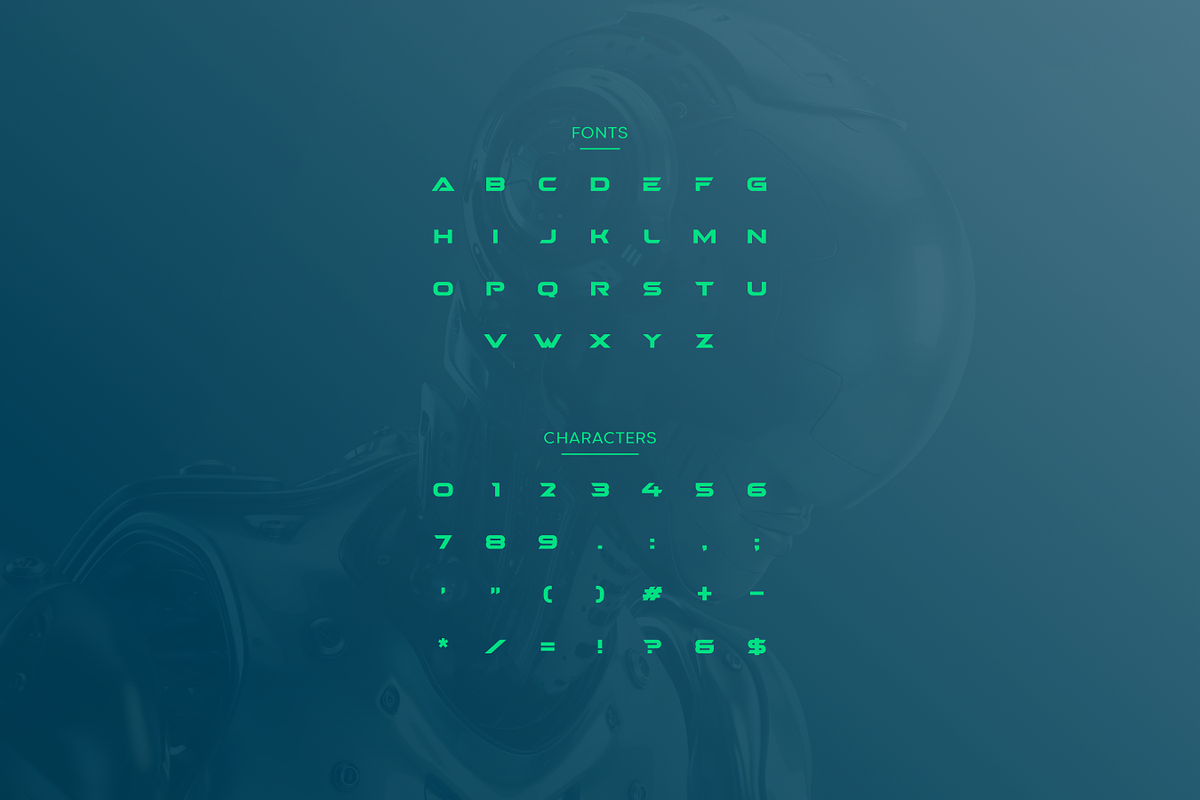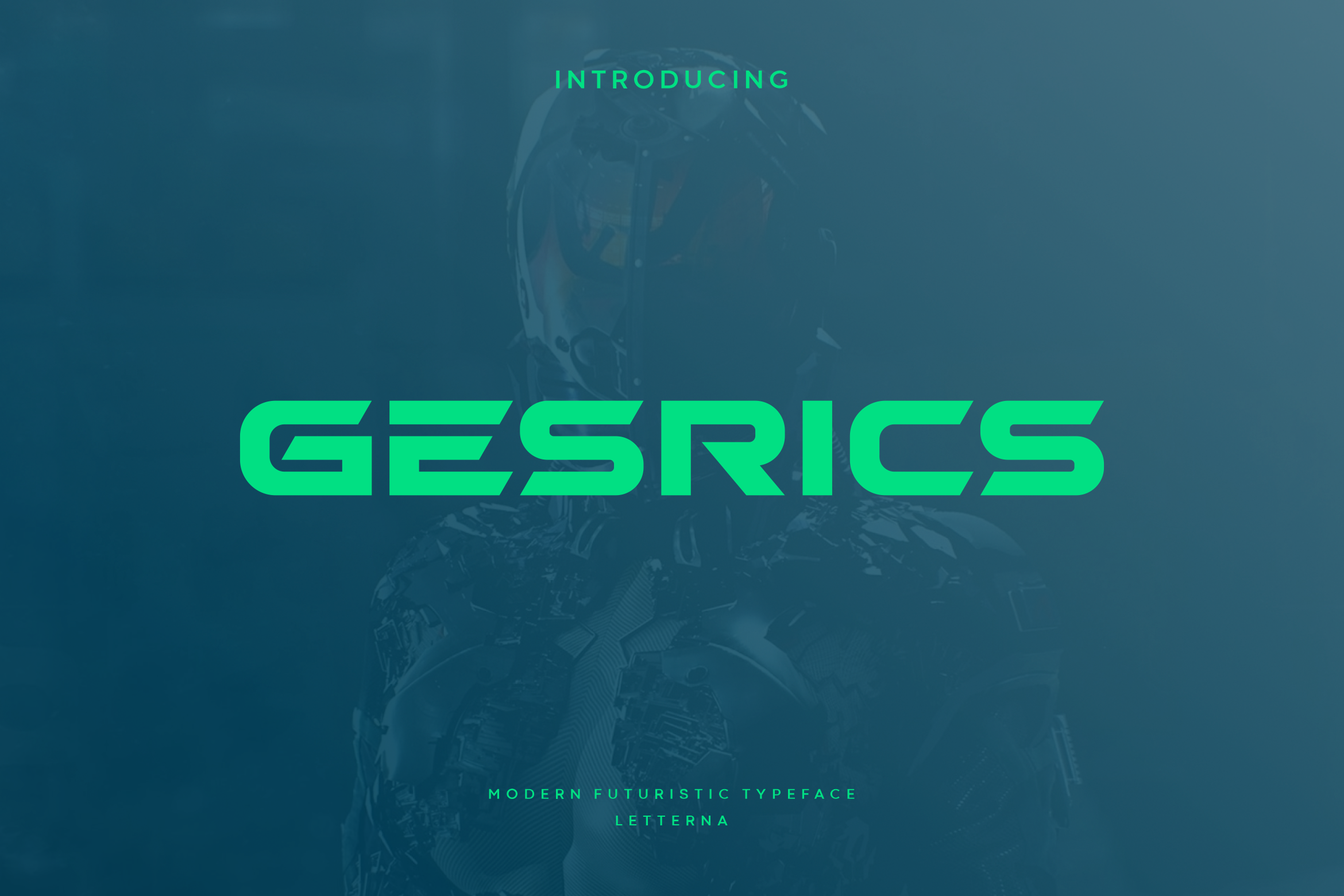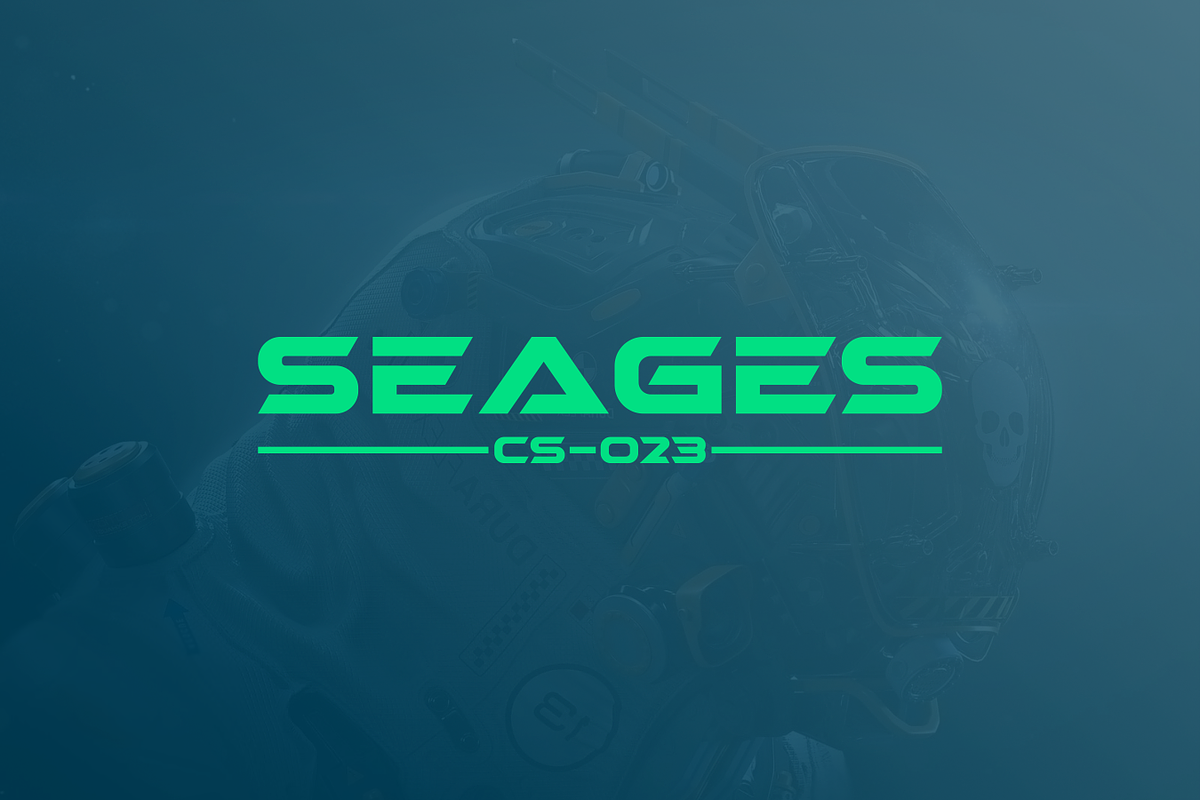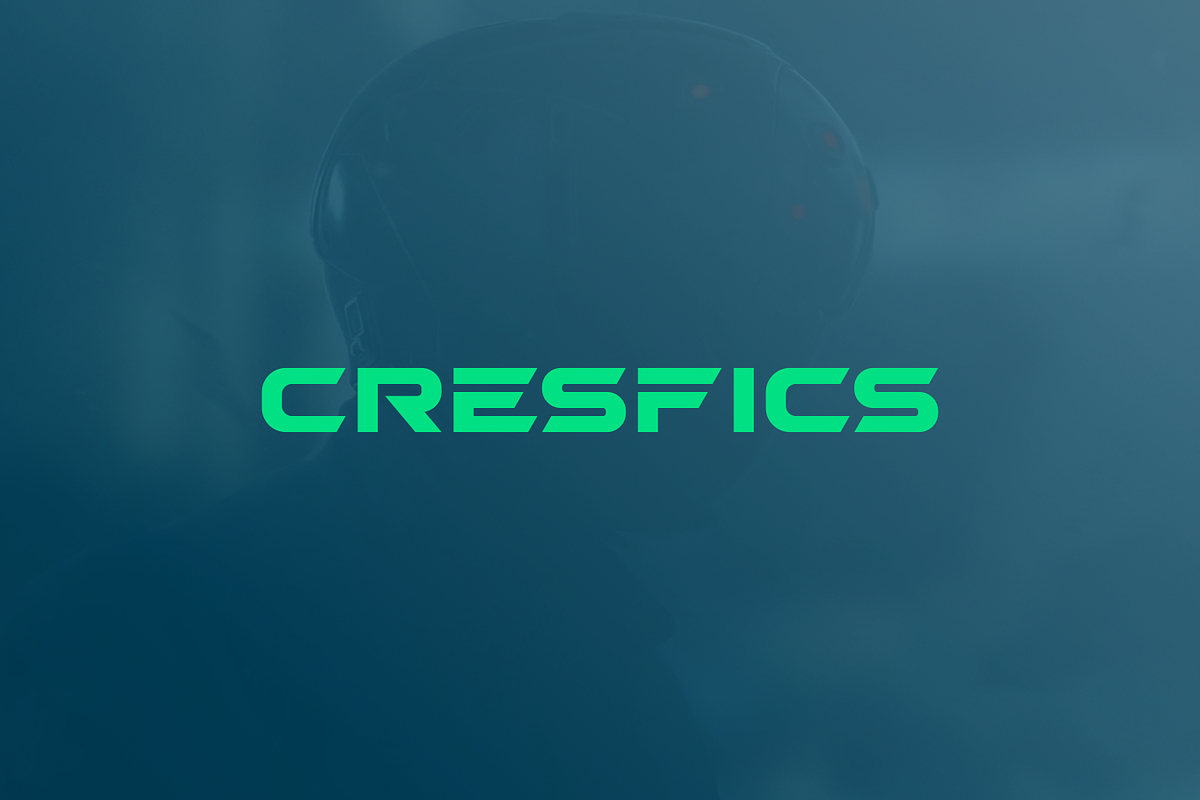
Gesrics - Modern Futuristic Typeface
Gesrics is a futuristic design and space font technology. This typeface is clean, modern, versatile and will give the best results for displays, branding or headlines. This future-inspired font will feel timeless with a sci-fi, cyberpunk or robotic theme. Grab it right away and use your creativity to use it, cheers!